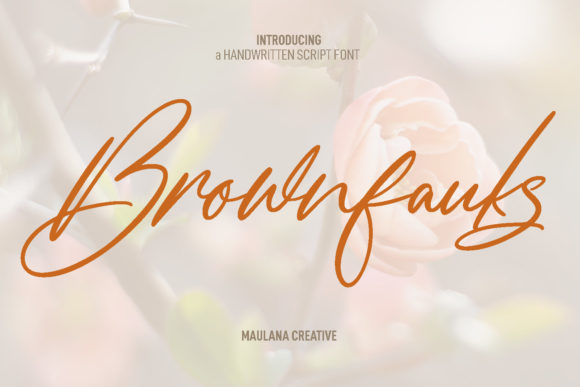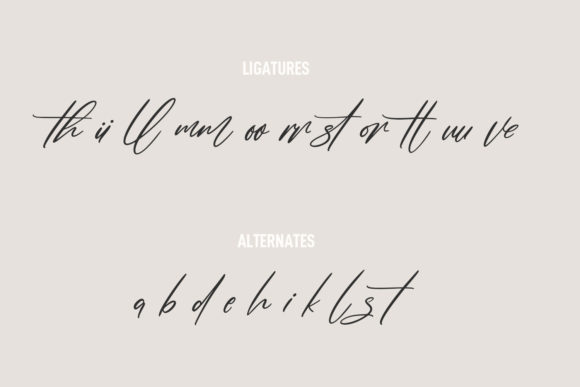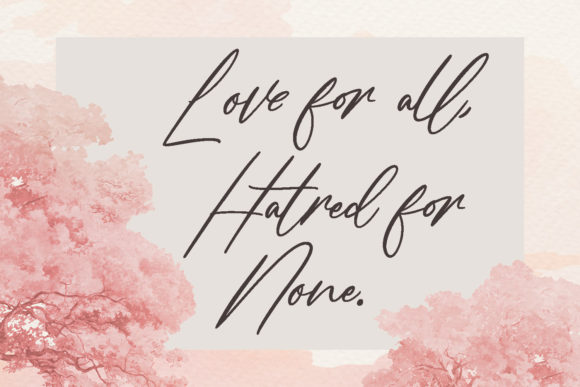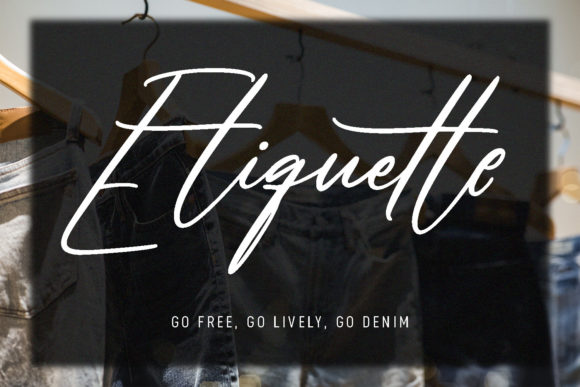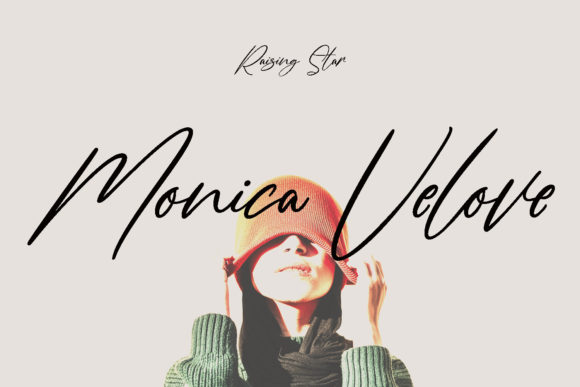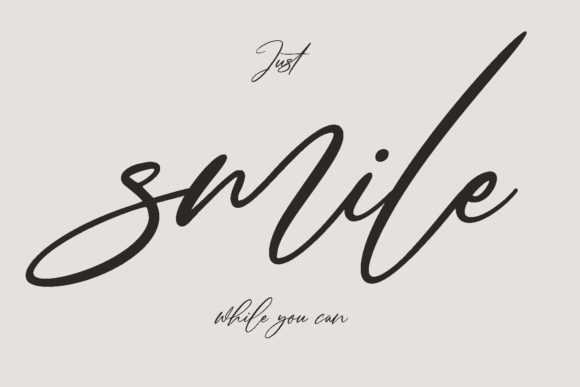
About Brownfauks Font
“Brownfauks is not just a font; itβs a work of art. This fashionable and relaxed handwritten font is a testament to the beauty of typography. With its unique style and character, Brownfauks is designed to make your work stand out. Itβs more than just a typeface; itβs a tool for creating stunning visuals that captivate and inspire.
One of the standout features of Brownfauks is its versatility. It is perfect for a wide range of projects, from product packaging and branding to magazine covers, social media posts, weddings, and more. Whether youβre a professional designer working on a major project or a hobbyist creating personalized items, Brownfauks is the font for you.
But Brownfauks is not just versatile; itβs also fashionable. With its modern and stylish design, Brownfauks is a font that stays ahead of the trends. Itβs a font that makes a statement, a font that stands out. Whether youβre creating a logo for a cutting-edge fashion brand or designing a poster for a trendy event, Brownfauks is the font that will help you make a statement.
Moreover, Brownfauks is designed to look extraordinary in a variety of contexts. Whether itβs on a business card, a website, a billboard, or a t-shirt, Brownfauks shines. Its unique style and character make it a versatile and adaptable font that can elevate any design.
But the beauty of Brownfauks goes beyond its design. Itβs also a font thatβs easy to use. With its clear and legible characters, Brownfauks is a font thatβs easy to read and understand. This makes it a great choice for designs that need to communicate clearly and effectively.
In conclusion, Brownfauks is a superb handwritten font thatβs perfect for any project. With its unique style and versatility, itβs a font that can make any design stand out. Whether youβre a professional designer or a hobbyist, Brownfauks is a font thatβs worth checking out.”